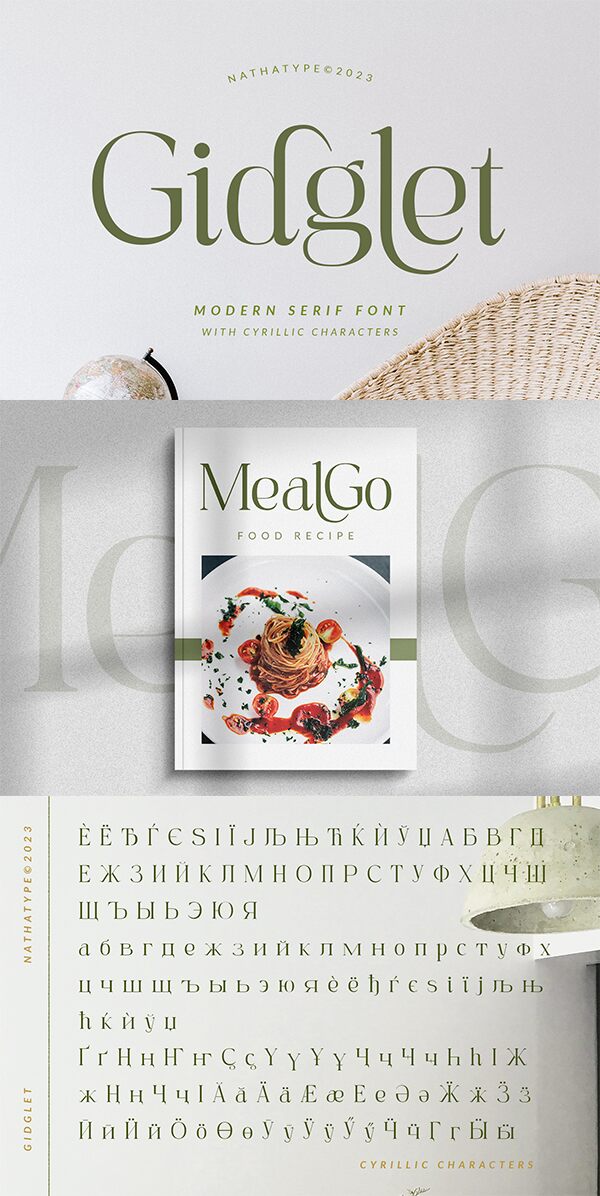
Gidglet
Gidglet, designed by Nathatype, is a captivating serif font that stands out with its whimsical and expressive characteristics. The playful curves and distinctive flair of each letter create an inviting yet sophisticated aesthetic, making it perfect for both formal and creative applications.
Visually striking, Gidglet’s light font style exudes elegance while maintaining a modern charm. Its generous proportions add a sense of liveliness, drawing the eye without overwhelming the viewer. This versatility enables it to shine in various design contexts—ideal for branding, editorial layouts, or even captivating invitations.
Whether used in headlines or body text, Gidglet effortlessly balances personality with readability, making it a delightful choice for those seeking to infuse their projects with a touch of refined whimsy.